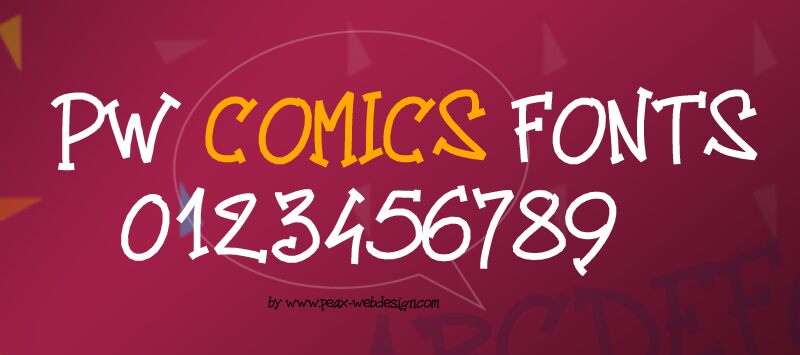
PW Comics by Peax Webdesign is a free comic display font with lanky, uneven letters and a cut-paper roughness. Sharp wedges and sudden changes in stroke width make the shapes look restless. The spacing feels deliberately awkward and jumpy.
Independent comic publishers could use it for cover titles with a scrappy, hand-drawn edge. It also fits gig posters, youth event graphics, and offbeat game artwork because the crooked forms echo loose inked illustration. Comic covers remain its clearest role, especially for stories with unruly humor or homemade artwork.